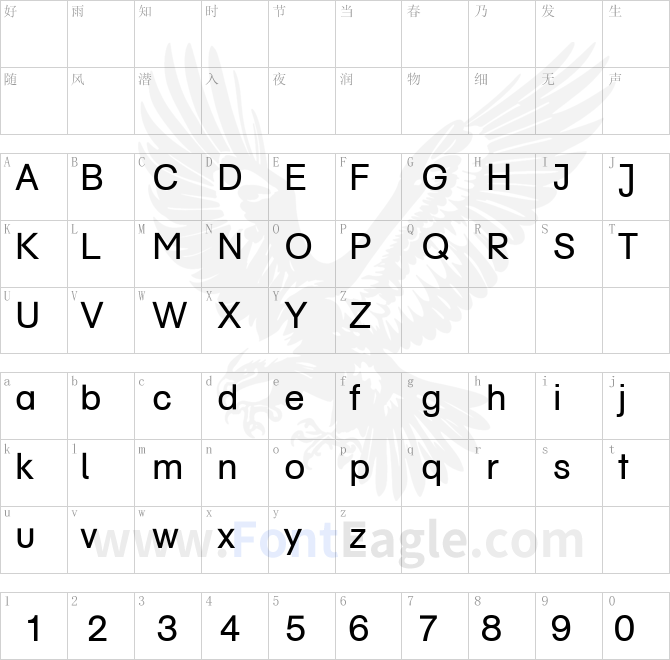
Akzidenz-Grotesk-R-Schulbuch-Regular is a great font, widely used in graphic design, single-page menu design, poster design and other fields, and is deeply loved by designers.Akzidenz-Grotesk-R-Schulbuch-Regular download.